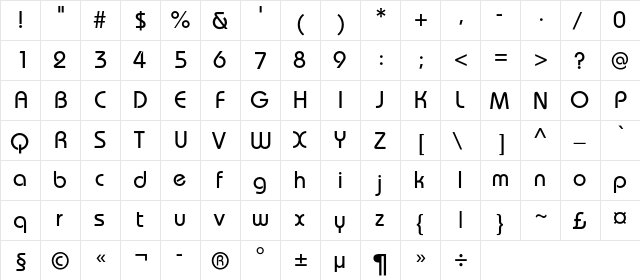
BauhausC Medium Regular
Design Context for BauhausC Medium Typeface
BauhausC Medium takes a measured approach to typography — its balanced proportions and neutral character make it a reliable workhorse for both digital and print work.